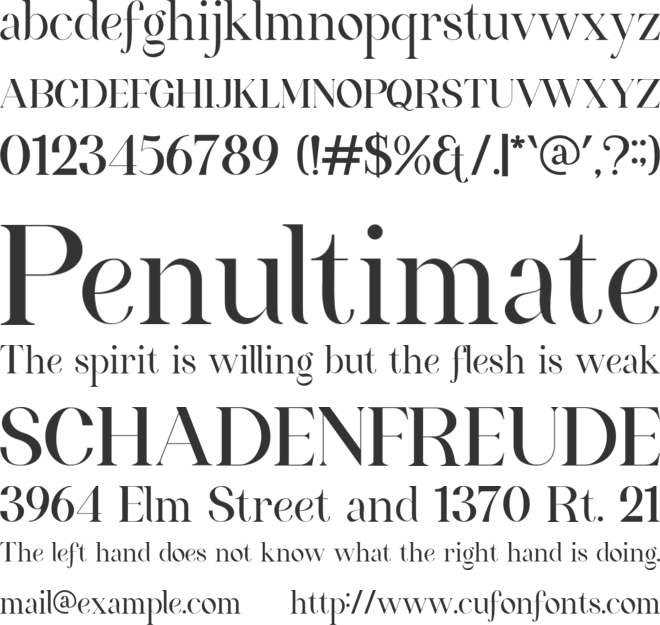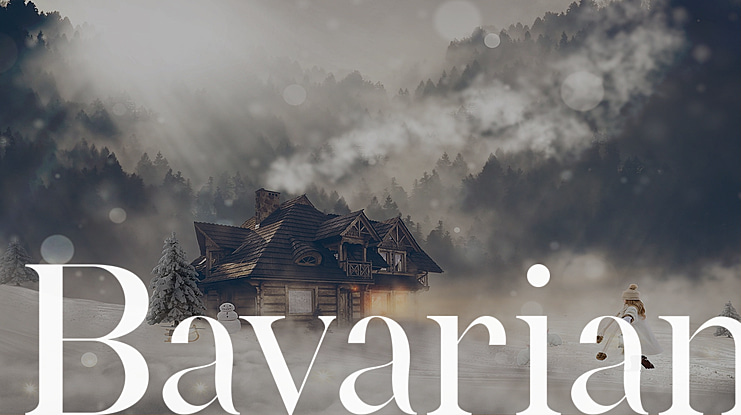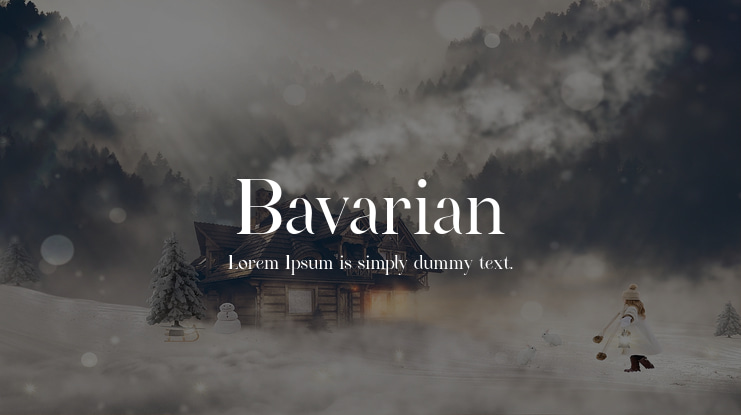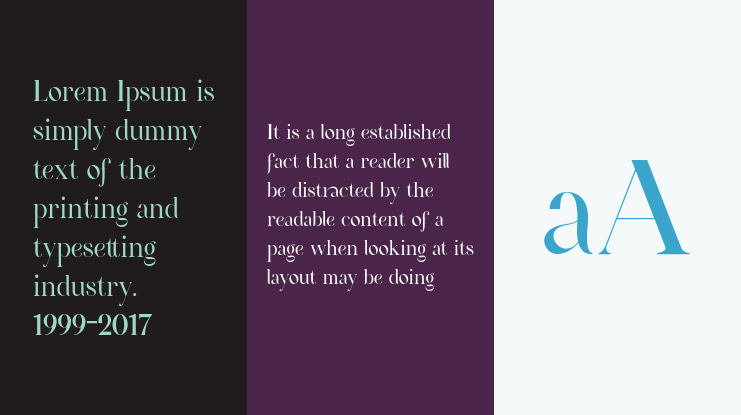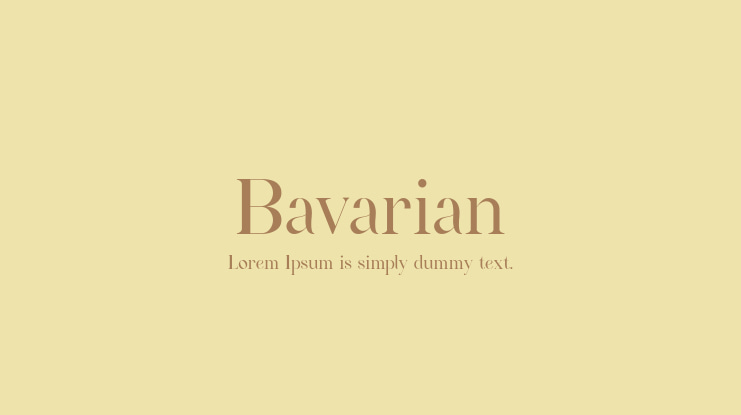
Bavarian Font
This font designed by rmdndsign is a classy and modern bold serif typeface perfect for wedding invitations, business cards, newspapers, presentations, advertisements, and more. This font will make a great addition to your fonts library, as it will make all your creative projects come alive! This font is PUA encoded, which means you can access all of the glyphs and swashes with ease!